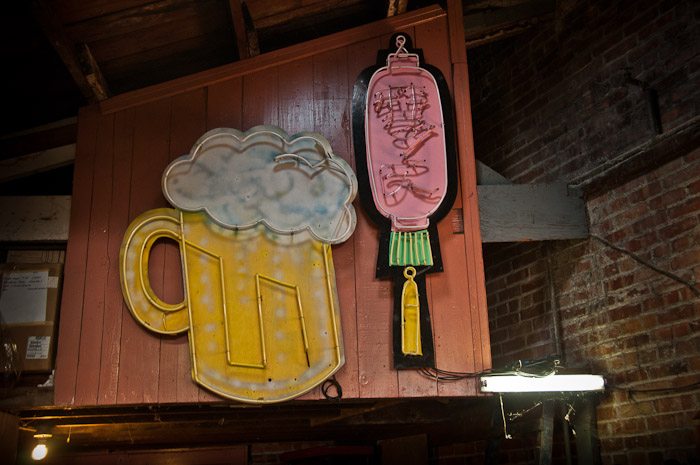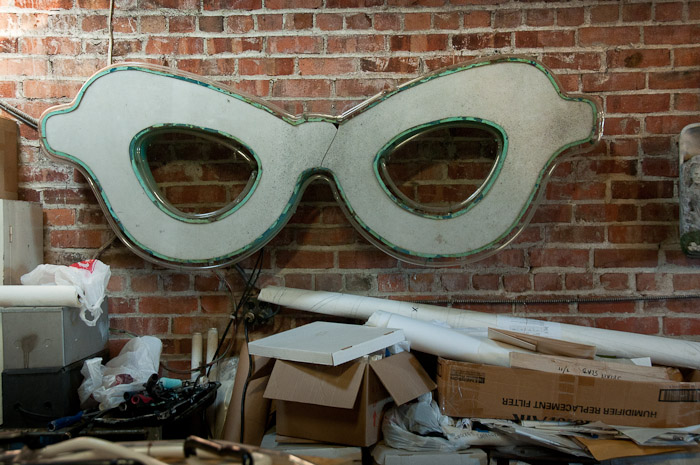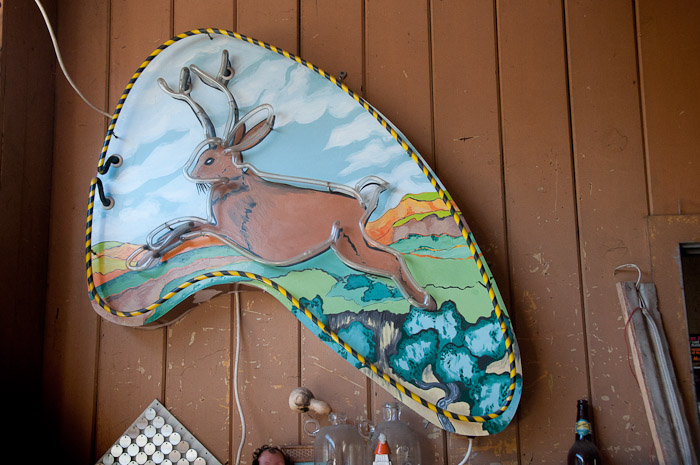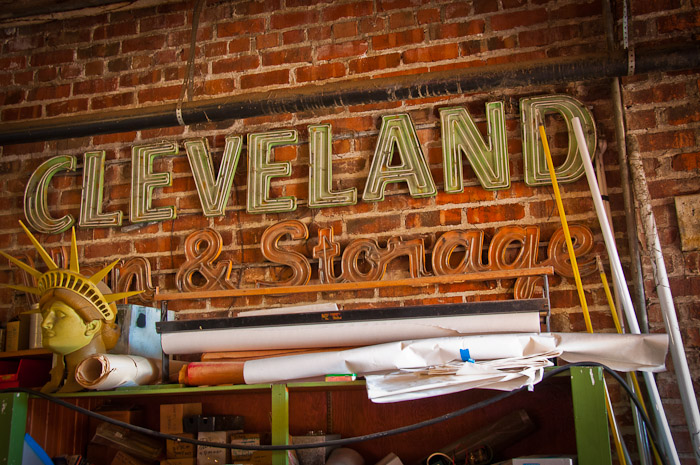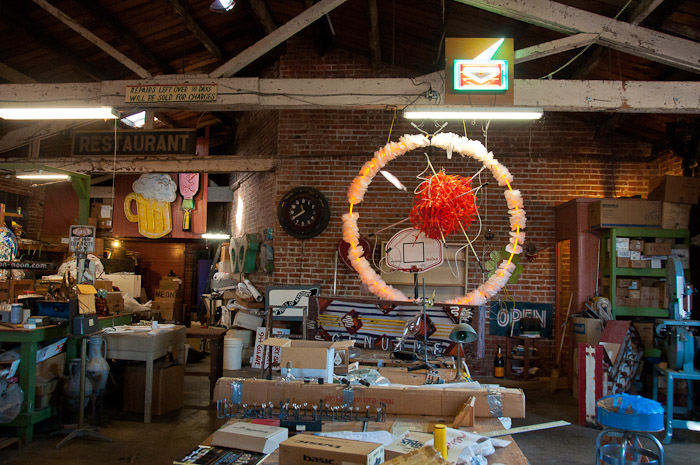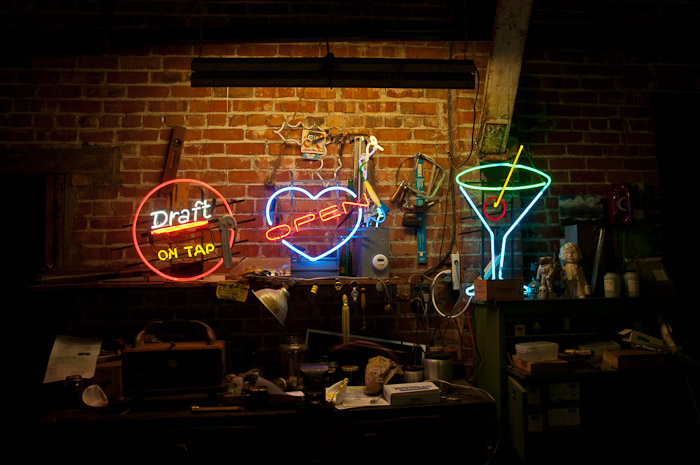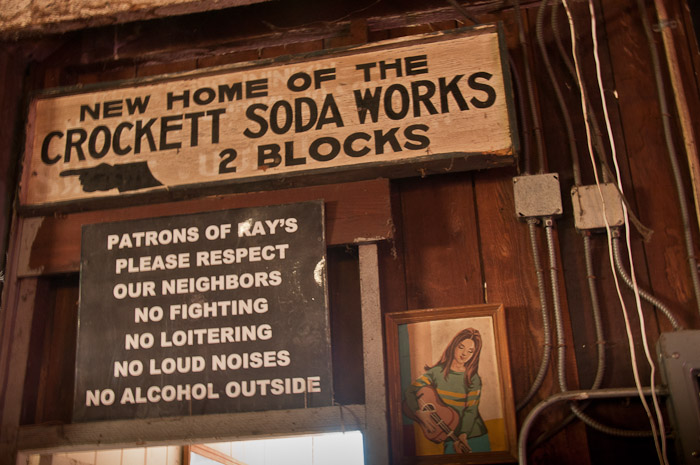
I've passed by this shop nearby, but it's always been closed... until my last trip to the town. The outside looks unique in not only looks, but it's location; almost in the center of a residential area. It was originally home to Crockett Soda Works.
Crockett, CA, is home to C & H Sugar, where at one time most all of the residents worked for the sugar plant. The pictures are of Argon Neon, the current occupant, with old signs that resembled a museum collection rather than a sign shop.
I am sure the guy comes to work daily and never thinks much about all the eye candy all around him.